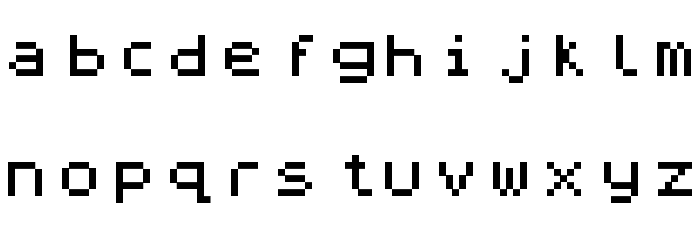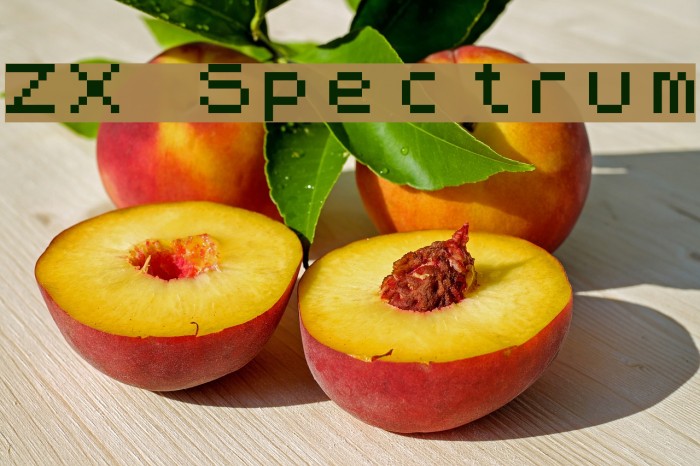
ZX Spectrum Font
This font is a classic example of pixelated design, reminiscent of early computer and video game graphics. Each character is constructed using a grid of pixels, giving it a distinctly retro and digital appearance. The characters are uniformly spaced and have a blocky, geometric style that is both functional and nostalgic. The uppercase and lowercase letters maintain a consistent height, with the lowercase being slightly smaller, preserving the pixelated aesthetic. Numbers and special characters follow the same design principles, ensuring a cohesive look across all glyphs. This font captures the essence of early digital typography, making it ideal for projects that aim to evoke a sense of nostalgia or pay homage to the early days of computing.
A pixelated, retro font inspired by early digital graphics.
- Proposed Projects: Ideal for retro video game designs, digital art projects, and nostalgic branding.
- Overall Style: Vintage
- Use Case: Logos, Digital art, Retro-themed projects